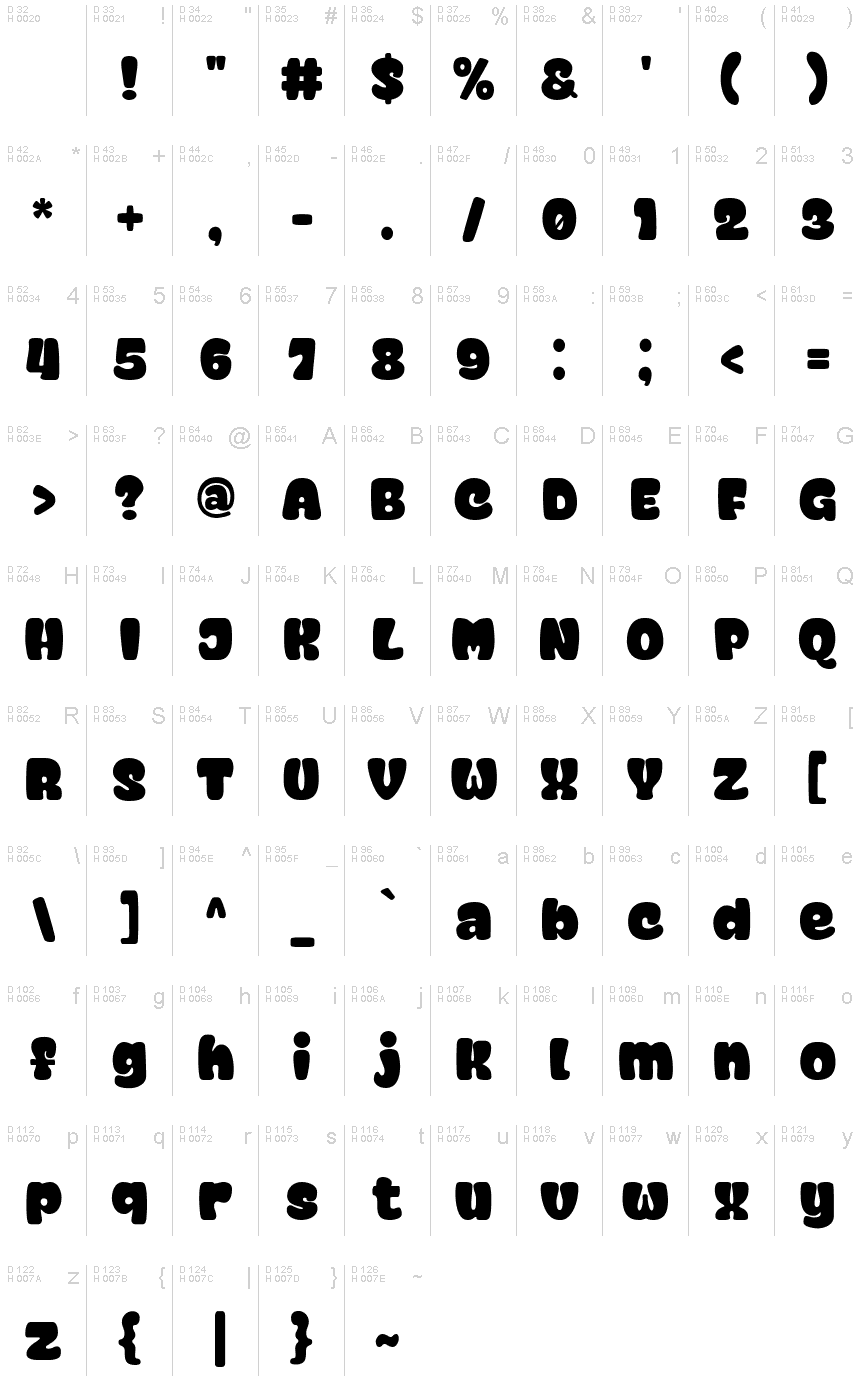
Super Funnel
Super Funnel, designed by fsuarez913, bursts onto the scene with an exuberant personality that's as irresistibly playful as it is impactful. This extra-bold display font, characterized by its cartoon style, brings a wave of cheerfulness and whimsy to any project it graces. Its robust letterforms are crafted with a buoyancy that seems to dance across the visual space, making it an ideal choice for designs that aim to entertain, engage, and stand out.
The rounded contours and bold strokes of Super Funnel promise a delightful aesthetic experience that is both friendly and eye-catching. Its presence can infuse life into children’s books, animated movie titles, video game interfaces, and fun branding initiatives where a touch of lightheartedness is essential. Embrace the playful charm of Super Funnel to elevate your creative projects with a font that’s not just seen but felt.